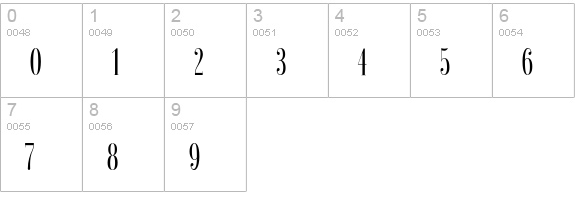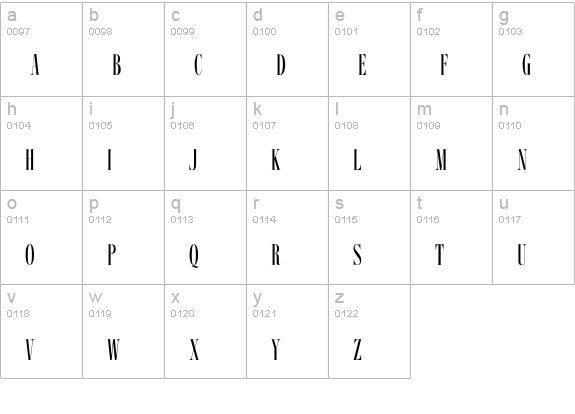
ImprimeurClassiqueEF-Reg Font Details
ImprimeurClassiqueEF-Reg is a classic and elegant font, perfect for adding a touch of sophistication to any project. Its timeless design and clean lines make it a versatile choice for a variety of applications, from invitations and stationery to headlines and logos. This font embodies the essence of traditional printing techniques, with its carefully crafted letterforms and beautiful serifs. Its balanced proportions and graceful curves create a harmonious and pleasing visual experience, ensuring that your text will be both legible and visually appealing. ImprimeurClassiqueEF-Reg is not only aesthetically pleasing, but it also offers functionality and versatility. With a wide range of weights and styles, you can easily customize your designs to suit your specific needs. Whether you're looking for a bold statement or a subtle touch, this font has got you covered. One of the best features of ImprimeurClassiqueEF-Reg is that it is freely available to download at FontsMarket.com. This means that you can enhance your creative projects without breaking the bank. With just a few clicks, you can access this exceptional font and start designing with ease. So why settle for ordinary fonts when you can elevate your designs with ImprimeurClassiqueEF-Reg? Its timeless elegance, versatility, and free availability make it the perfect choice for designers, creatives, and anyone looking to add a touch of sophistication to their work. Download it today and let your creativity soar!